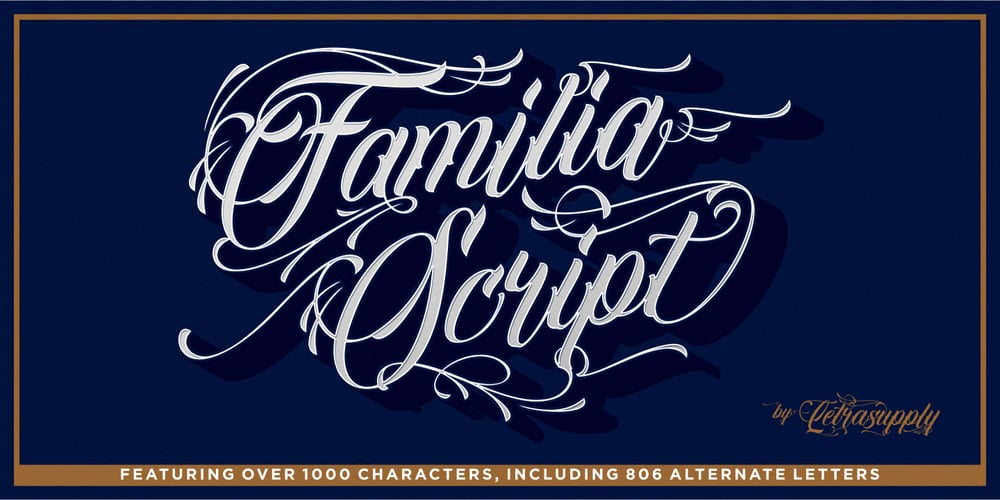
Familia Script Font Family was designed by Irma Asharini and published by Letrasupply Typefoundry. Familia Script contains 1 styles and family package options. It’s a beautiful, elegant, clean and unique typeface you need to have! Contains over 1000 glyphs, it has many alternate characters so you can make a beautiful decorative type easily. Familia Script is truly a perfect script for any project that needs a delicate typeface such as custom name, greeting card, create logos, etc. A handy font for tattoo designers and artsy creative people! How to get access alternate glyphs from open type fonts: http://adobe.ly/1m1fn4Y USER GUIDE: https://www.youtube.com/watch?v=kwYVZznG4Bo